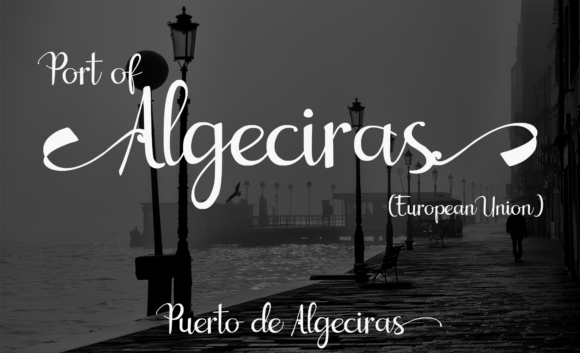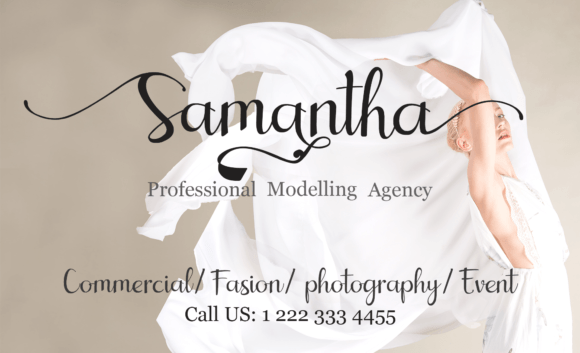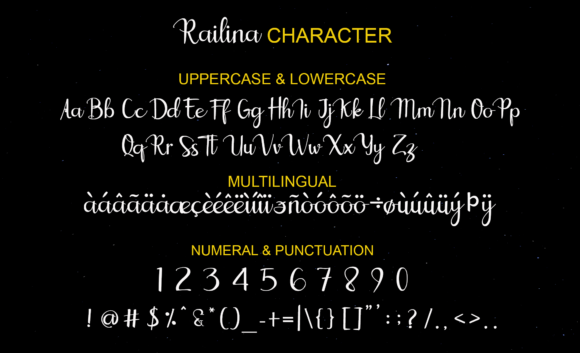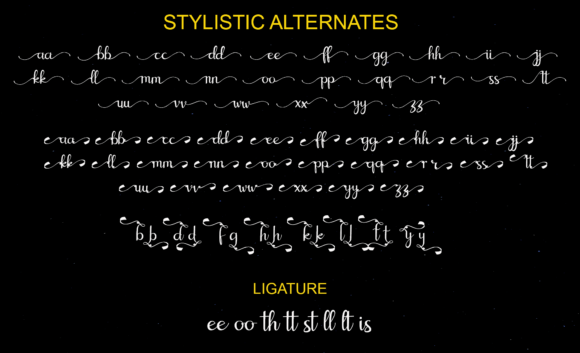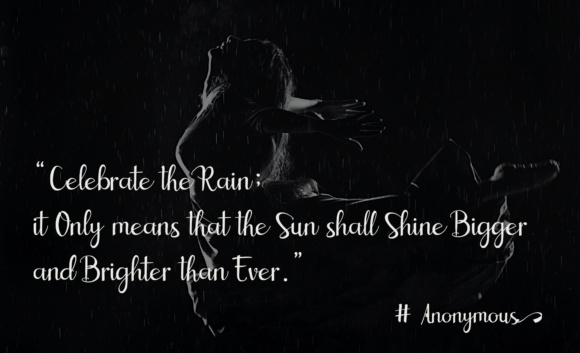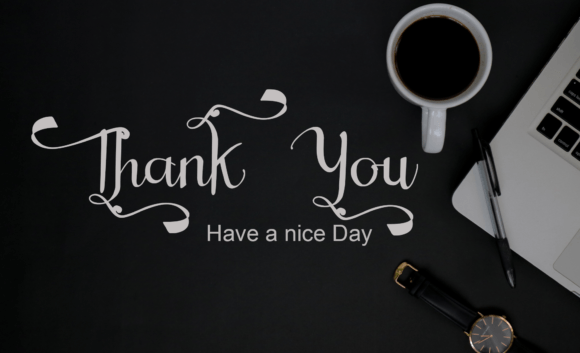
Introduction to Railina Font
Have you ever been working on a design project, pouring your heart and soul into it, and then suddenly, you stumble upon the perfect font that brings everything together? For designers, that ‘aha’ moment is like a breath of fresh air. It’s the spark that sets our creativity ablaze, and we know we’re on the right track. This is exactly what the Railina Font does – it’s a delicate, elegant, and flowing handwritten font that will make your designs stand out from the crowd.
Whether you’re working on a personal project or a commercial one, the Railina Font is a valuable resource that will elevate your design game. Its timeless style and high-quality aesthetic make it perfect for any creative project. And the best part? It’s free to download, so you can experiment with it without any restrictions.
Key Features of Railina Font
- High-quality, professional design resource perfect for creative projects.
- Unique, stylish design that adds a touch of elegance to any creative project.
- Perfect for use in logos, branding, and other design elements where a high-quality font is required.
Honest Review: Railina Font
As a designer, I’m always on the lookout for high-quality fonts to elevate my creative projects. Recently, I stumbled upon the Railina Font, and I’m excited to share my honest review with you.
- Unique and modern design: Railina Font boasts a sleek, modern aesthetic that’s perfect for contemporary designs.
- High-quality font files: The font files are crisp and clear, making them ideal for both digital and print projects.
- Transparent background: This feature allows for seamless integration with other design elements, making it a great choice for creative projects.
While I appreciate the Railina Font’s modern design, I do wish it had more font styles and variations to choose from.
Overall, I’m impressed with the Railina Font’s high-quality design and free download option. It’s an excellent resource for designers working on modern creative projects. However, its limited font styles and variations prevent it from being a go-to font for more complex designs.
Railina Font: A High-Quality Design Resource
Tips for Getting the Most Out of Railina Font
Here are some tips for getting the most out of Railina Font: Use it with a transparent background to create a clean and modern design. Experiment with different font sizes and colors to create visual interest. Combine Railina Font with other design resources to create a unique and eye-catching design.
Railina Font is a versatile design resource that can be used in a variety of creative projects, including: logos, social media graphics, posters, and presentations. Its high-quality design and transparent background make it a popular choice for designers and non-designers alike.